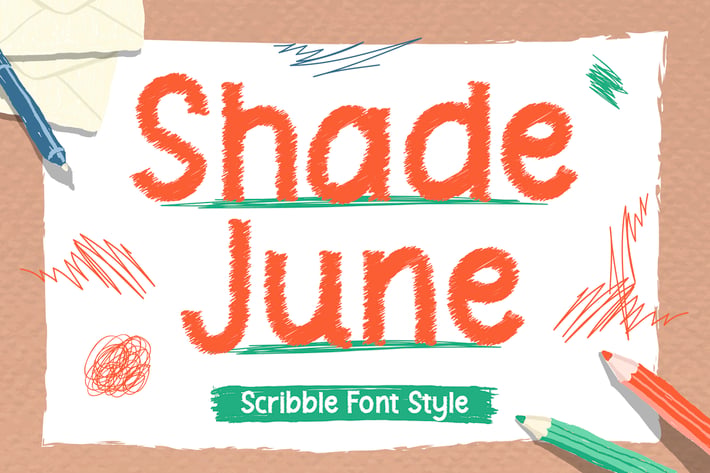
Shade June – Scribble Font Style
Shade June is a scribble font style with an incredibly adorable charm.
Perfect for party invitations, printed quotes, standout packaging, or adorable designs!
You can even use it to create amazing headings, logos, menus, and social media graphics.
Also, it is suited for Kids Theme, summer-themed, and many more!